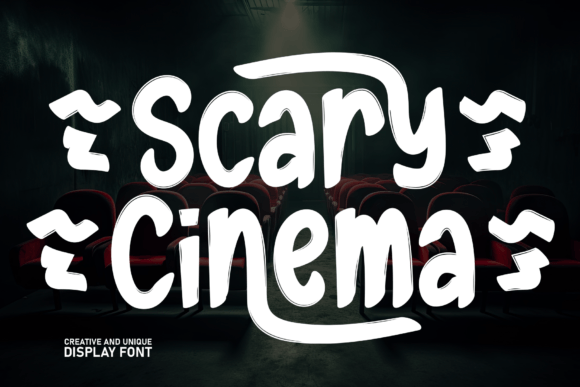
Discover the Delightful Scary Cinema Font: Adding a Touch of Whimsy to Your Designs
Are you on the hunt for a font that exudes a sense of playfulness and charm? Look no further than the Scary Cinema font, a sweet and friendly display font that’s perfect for adding a fun touch to your designs. In this article, we’ll delve into the world of Scary Cinema, exploring its unique features, uses, and benefits. Whether you’re a designer, artist, or simply someone who appreciates the aesthetic of typography, this comprehensive guide is for you.
What is Scary Cinema Font?
Scary Cinema is a delightful display font that’s sure to capture your attention. Despite its name, which might evoke thoughts of spooky horror movies, this font is anything but scary. Instead, it’s a cute and fun typeface that’s ideal for writing wedding invitations, cards, or any other design that might need a playful touch.
The Scary Cinema font boasts a unique and quirky aesthetic that’s reminiscent of classic cinema posters. Its bold, rounded letters and charming details make it a standout among other fonts. Whether you’re looking to create a whimsical logo, a festive greeting card, or a eye-catching poster, Scary Cinema is the perfect choice.
Key Features of Scary Cinema Font
So, what makes Scary Cinema font so special? Here are some of its key features:
- Cute and playful design: Scary Cinema’s bold, rounded letters and charming details give it a unique and playful aesthetic.
- Versatile use: This font is perfect for a wide range of design projects, from wedding invitations and cards to posters, logos, and more.
- Easy to read: Despite its bold and playful design, Scary Cinema is surprisingly easy to read, making it perfect for both headlines and body text.
Uses of Scary Cinema Font
Scary Cinema font is an incredibly versatile typeface that can be used in a wide range of design projects. Here are some ideas to get you started:
- Wedding invitations and cards: Add a touch of whimsy to your wedding stationery with Scary Cinema font.
- Posters and flyers: Create eye-catching posters and flyers for events, promotions, or products with this bold and playful font.
- Logos and branding: Use Scary Cinema font to create a unique and memorable logo for your business or brand.
- Greeting cards and gift tags: Add a personal touch to your greeting cards and gift tags with this charming font.
Benefits of Using Scary Cinema Font
So, why should you choose Scary Cinema font for your design projects? Here are some benefits:
- Unique and eye-catching: Scary Cinema font is sure to grab attention and make your designs stand out.
- Playful and whimsical: This font adds a touch of playfulness and whimsy to your designs, perfect for creating a lighthearted and fun atmosphere.
- Easy to use: Scary Cinema font is surprisingly easy to read and use, making it perfect for both beginners and experienced designers.
Tips and Tricks for Using Scary Cinema Font
Here are some tips and tricks to help you get the most out of Scary Cinema font:
- Experiment with font sizes: Try out different font sizes to create visual interest and hierarchy in your designs.
- Mix and match with other fonts: Combine Scary Cinema font with other fonts to create a unique and interesting typography.
- Use it for headlines and titles: Scary Cinema font is perfect for headlines and titles, adding a touch of playfulness and whimsy to your designs.
- Add texture and effects: Experiment with texture and effects to add depth and interest to your designs.
In conclusion, Scary Cinema font is a delightful and versatile typeface that’s perfect for adding a touch of whimsy and playfulness to your designs. With its unique features, uses, and benefits, this font is sure to become a favorite among designers and artists. Whether you’re creating wedding invitations, posters, logos, or greeting cards, Scary Cinema font is an excellent choice. So, go ahead and give it a try – you won’t be disappointed!
- Q: What is Scary Cinema font?
- A: Scary Cinema font is a sweet and friendly display font that’s perfect for adding a touch of whimsy and playfulness to your designs.